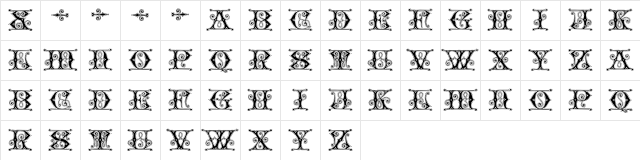
Gingerbread Initials Regular
Designer: Dieter Steffmann
Design Context for Gingerbread Initials
Gingerbread Initials is a composed and adaptable typeface that performs quietly and consistently across a wide range of design contexts.